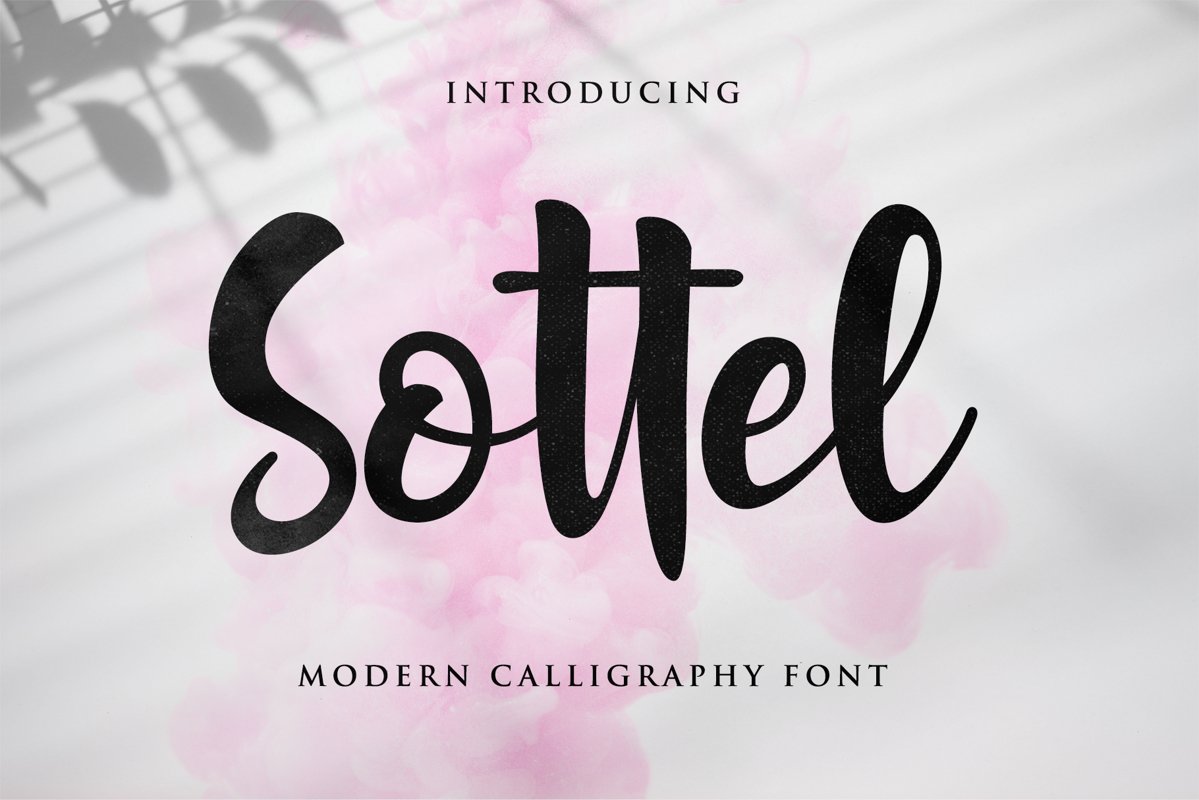
Sottel script
Sottel is a stylish modern calligraphy font with Hand Lettering style. Every single letters have been carefully crafted to make your text looks beautiful. I hope this can make inspire you from your work. Font is PUA encoded so you can access extras from character map in most design software.